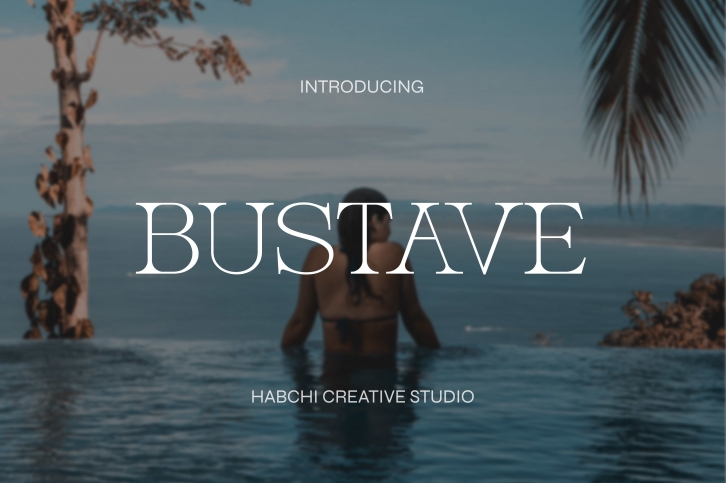
Bustave is an exquisite serif font that makes it easy to create stunning logos, advertisements, headlines, social media quotes, branding, and more! This font has been carefully created to bring together timeless letterforms with modern ligatures.